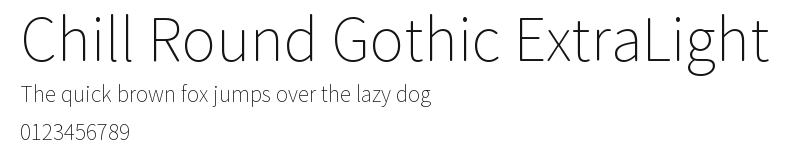
• Font Name: Chill Round Gothic ExtraLight
• Full Font Name: 寒蝉圆黑体ExtraLight
• Designer: Ryoko NISHIZUKA 西塚涼子 (kana, bopomofo & ideographs); Paul D. Hunt (Latin, Greek & Cyrillic); Sandoll Communications 산돌커뮤니케이션, Soo-young JANG 장수영 & Joo-yeon KANG 강주연 (hangul elements, letters & syllables)
• Description: 基于思源黑体(SourceHanSansSC)的改变。
Chill Round Gothic ExtraLight.ttf is a modern, elegant sans-serif font designed for ultimate readability and visual harmony. Perfect for branding, headlines, web design, and print materials.